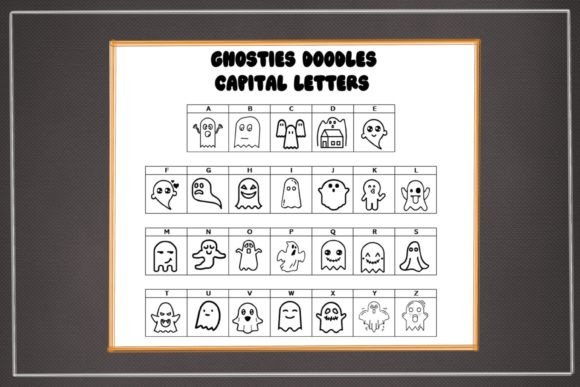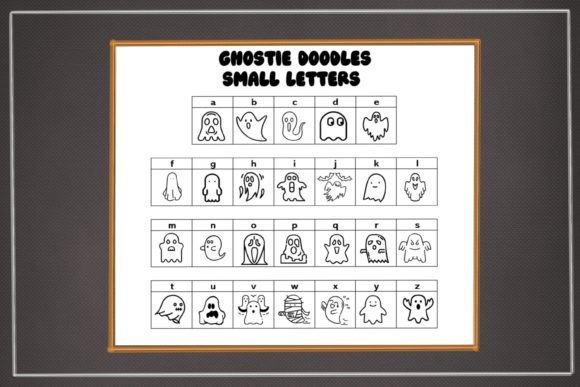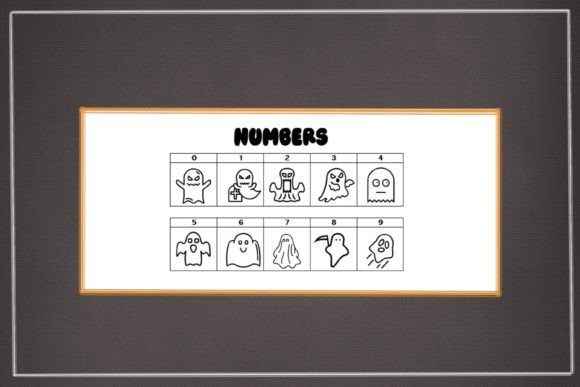
The Spooky-ooky World of Ghosties Font: A Designer’s Delight
I’ll never forget the time I was working on a Halloween-themed project for a client, and I just couldn’t find the right font to match the spooky yet playful vibe they were going for. I scoured the internet, tried out dozens of fonts, but nothing seemed quite right. That was until I stumbled upon Ghosties Font. It was like a ghostly whisper in my ear, saying, “Hey, I’ve got just what you need.” ✨
So, what makes Ghosties Font so special? Let’s dive into the good stuff and, well, a few quirks. 😉
- 🎃 **Whimsical designs**: Each glyph is carefully crafted to bring a smile to your face, from traditional scary ghosts to ones with hearts and laughter.
- ✅ **Versatility**: Whether you’re working on classroom decorations, home decor, posters, invitations, or social media posts, Ghosties Font has got you covered.
- 🔍 **Easy to use**: With its doodle/dingbat style, you can easily combine these glyphs with your own text to create individualized clipart images.
While Ghosties Font is a fantastic addition to any design project, there are a few things to keep in mind:
- 🤔 **Limited text support**: As a dingbat font, Ghosties Font is primarily designed for use with glyphs, so don’t expect to write long paragraphs of text with it.
- ⚠️ **Glyph density**: With so many fun glyphs to choose from, it’s easy to get carried away and overcrowd your design. Make sure to balance your composition.
The Backstory Behind Ghosties Font
Legend has it that Ghosties Font was born from the creative mind of a designer who wanted to capture the whimsical spirit of Halloween. With a passion for doodling and a love for all things spooky, this designer set out to create a font that would bring a smile to people’s faces. And so, Ghosties Font was born. 🎃
Q: What type of projects is Ghosties Font best suited for?
A: Ghosties Font is perfect for Halloween-themed projects, including classroom decorations, home decor, posters, invitations, greeting cards, social media posts, scrapbooks, journals, and postcards.
Q: Can I combine Ghosties Font with other fonts?
A: Absolutely! Ghosties Font pairs well with a variety of fonts. Feel free to experiment and find the perfect combination for your project.